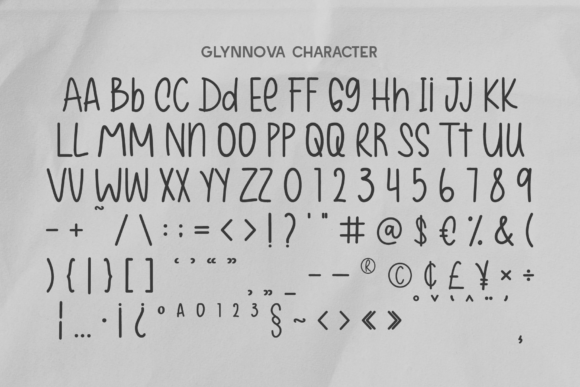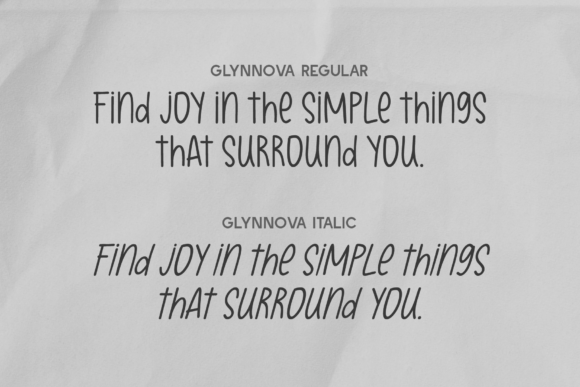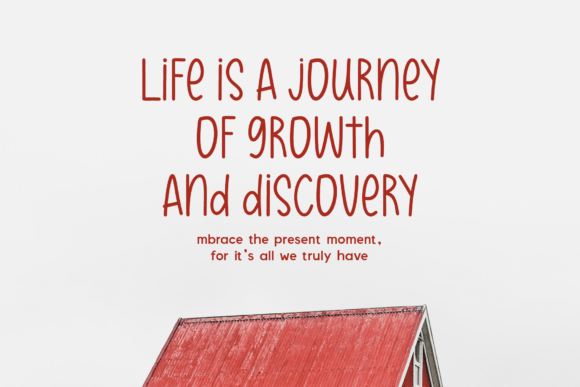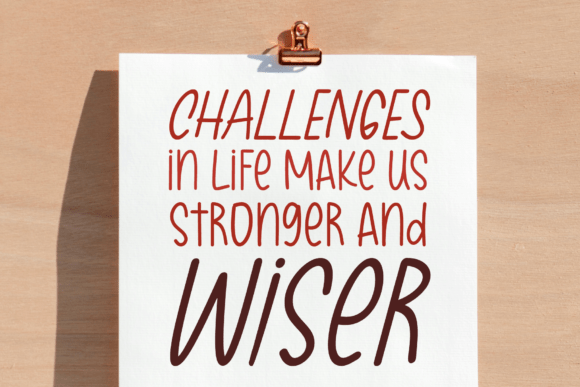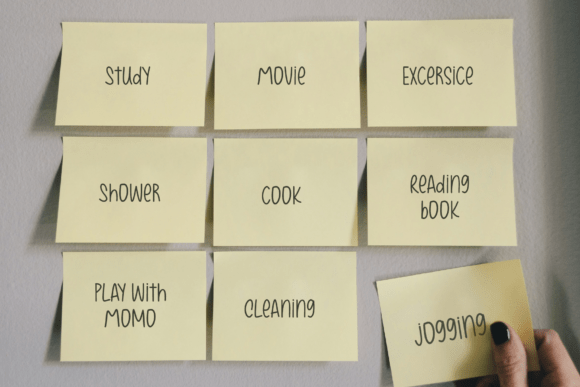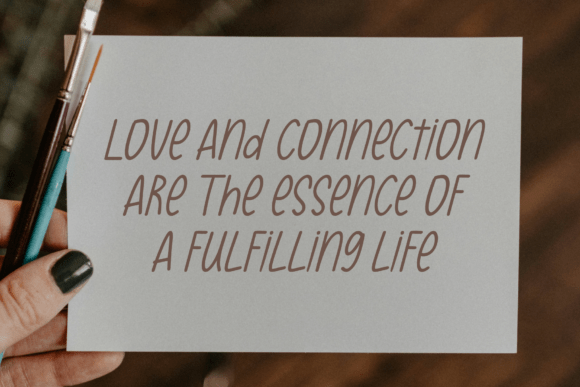
Introduction to Glynnova Font
As you sit at your desk, surrounded by scribbled notes, coffee-stained papers, and half-finished projects, you finally stumble upon that elusive spark of creativity. Your pen glides effortlessly across the page, leaving a trail of charming imperfections and unique character. This is the magic of handwritten typography, and it’s exactly what the Glynnova Font embodies.
For designers, finding the perfect font can be a daunting task, especially when it comes to projects that require a human touch. That’s where Glynnova Font comes in – a high-quality, free download that offers a transparent background and a plethora of creative possibilities.
Whether you’re working on a design project or simply want to add a touch of personality to your social media posts, the Glynnova Font is an excellent resource to have in your arsenal. Its unique blend of modern simplicity and informal charm makes it an ideal choice for branding, packaging, and lifestyle blogs.
Key Features of Glynnova Font
- High-quality design resource suitable for creative projects, offering a unique aesthetic and style.
- Designed with a clean and modern look, making it perfect for various design applications, including logos, typography, and more.
Honest Review: Glynnova Font
I recently had the chance to experiment with the Glynnova Font, and I must say it’s a solid addition to any designer’s toolkit. As a go-to design resource, I appreciate that it’s available for free download, making it easily accessible to those working on creative projects.
One of the standout features of the Glynnova Font is its versatility. With a wide range of styles and weights, it can be used to create visually appealing designs with a transparent background, adding a touch of sophistication to any layout.
- High-quality design with a modern aesthetic
- Extensive character set and language support
- Not ideal for body text due to its decorative nature
- May not be suitable for projects requiring a large font size
Overall, the Glynnova Font is a great choice for designers working on creative projects. While it may have some limitations, its unique style and high-quality design make it a valuable addition to any design resource library.
How to Use Glynnova Font
To get the most out of the Glynnova Font, experiment with different font sizes, colors, and styles. Combine it with other design elements to create a unique and eye-catching design.
The Glynnova Font is ideal for a variety of creative projects, including branding, marketing materials, and digital designs. Its elegant and sophisticated design makes it perfect for corporate and professional applications.